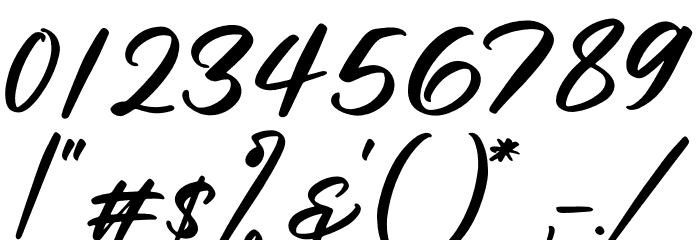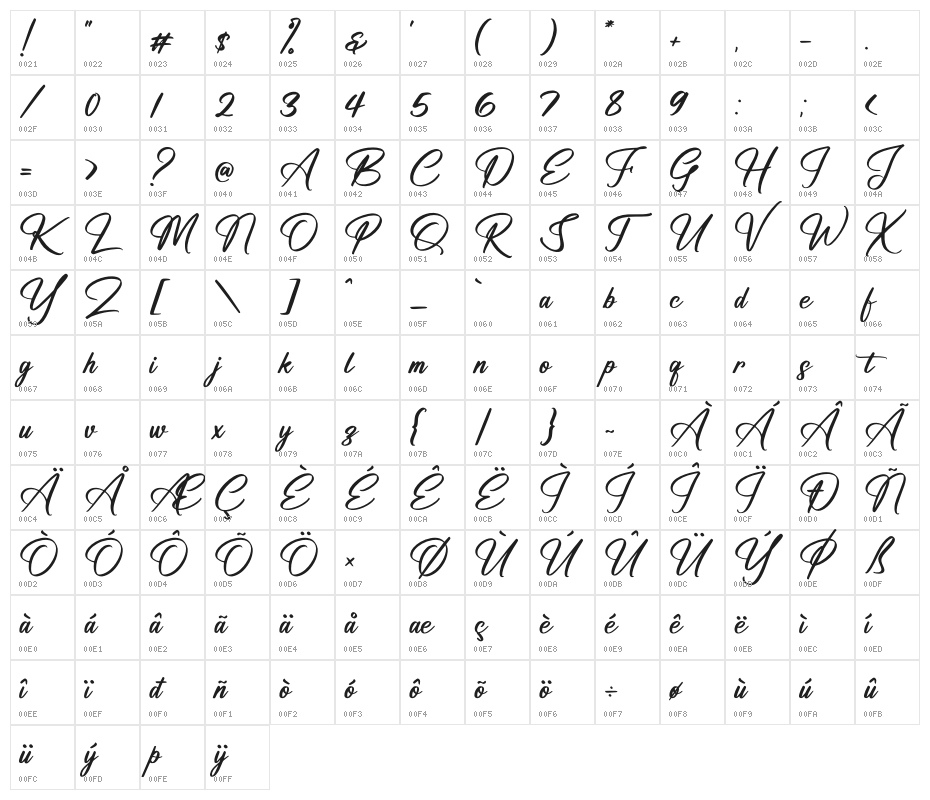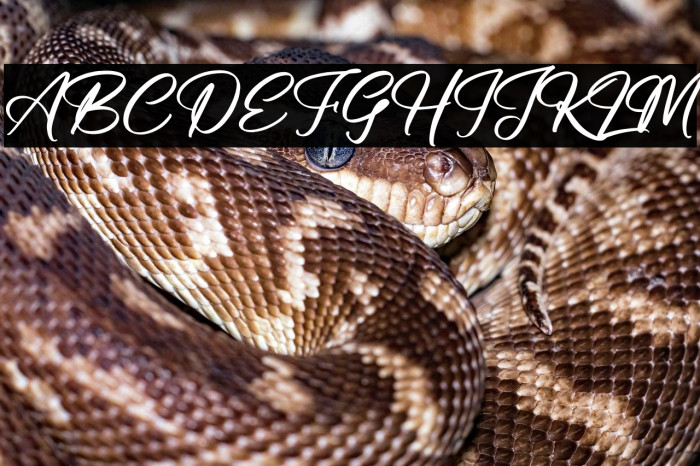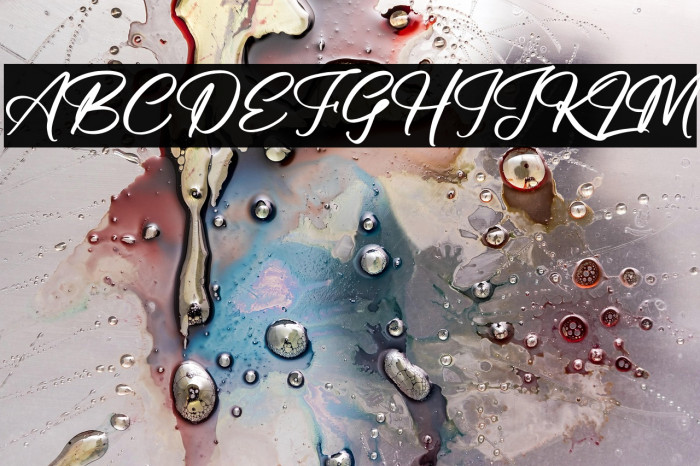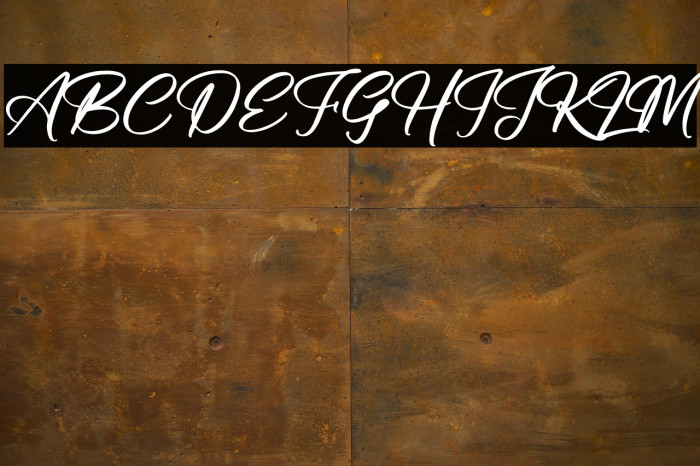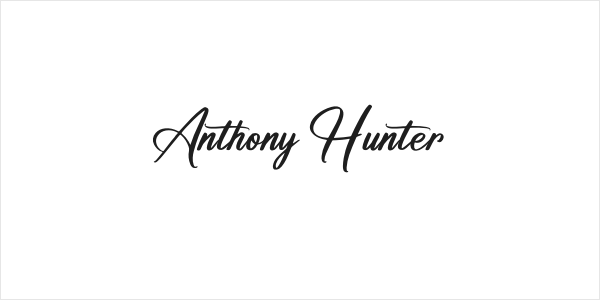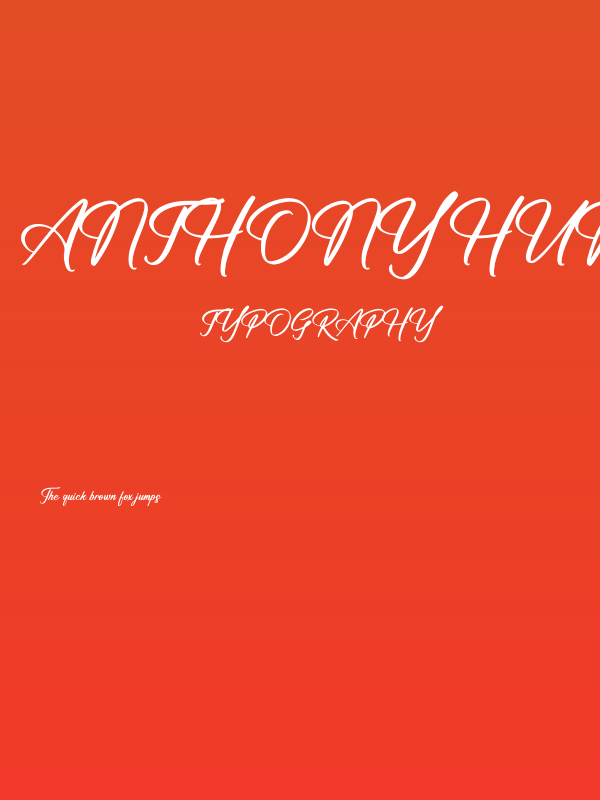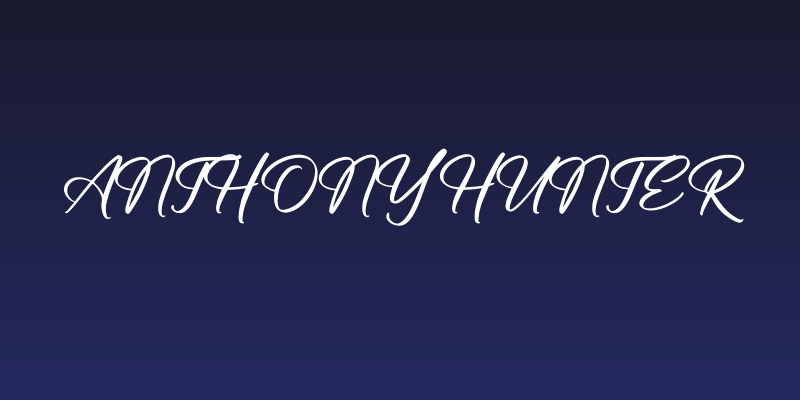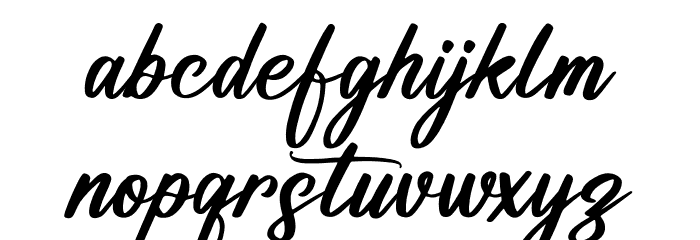
Anthony Hunter Font
Anthony Hunter Description
This font features a flowing, cursive style that exudes elegance and sophistication. The uppercase letters are characterized by sweeping curves and flourishes, giving them a dramatic and stylish appearance. The lowercase letters maintain a consistent flow, with smooth connections between characters, enhancing readability while retaining a handwritten charm. The numerals are bold and clear, matching the overall aesthetic of the font. Special characters are thoughtfully designed, maintaining the font's cohesive look. This font is perfect for projects that require a touch of elegance and personal flair.